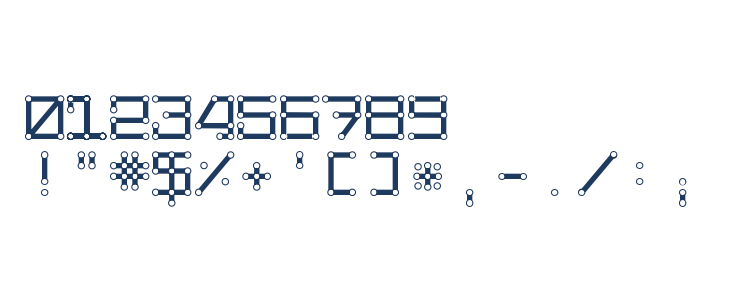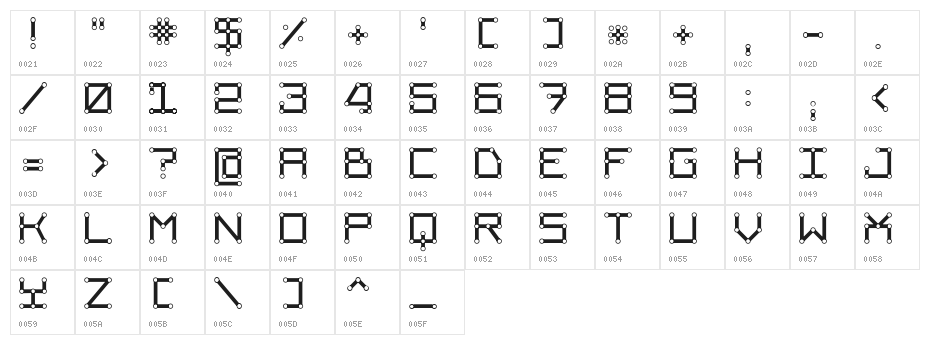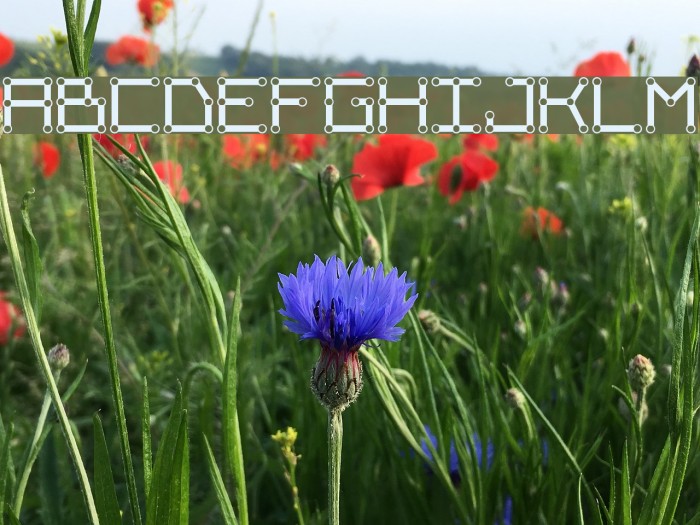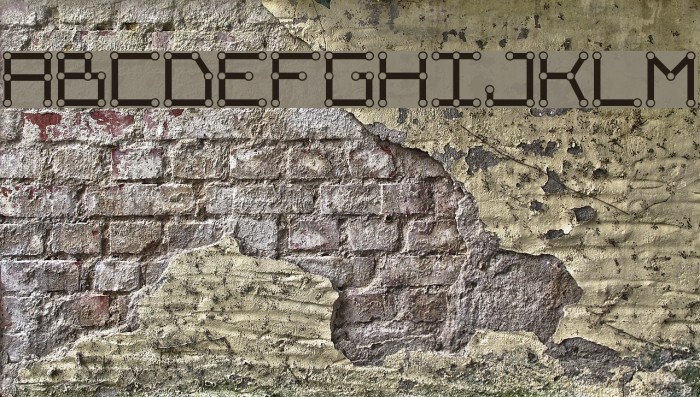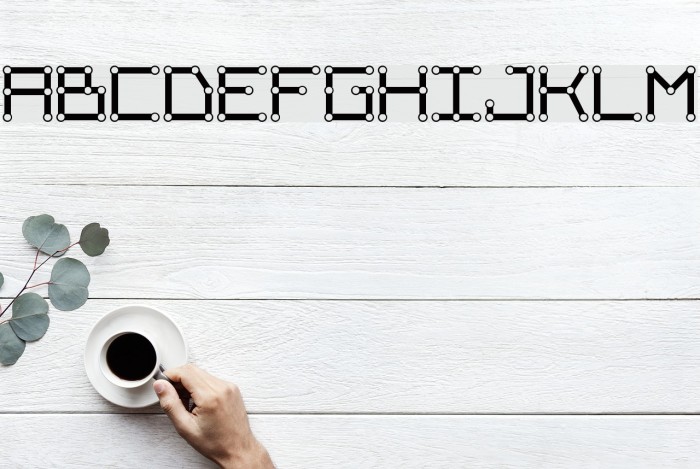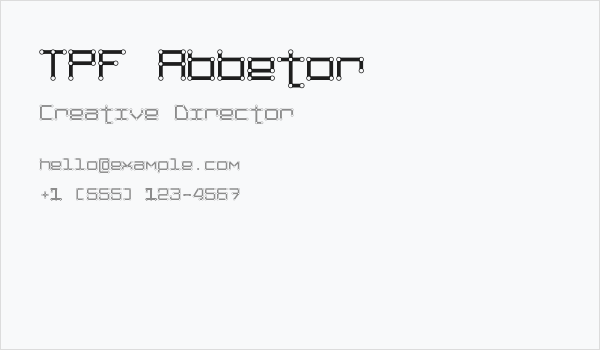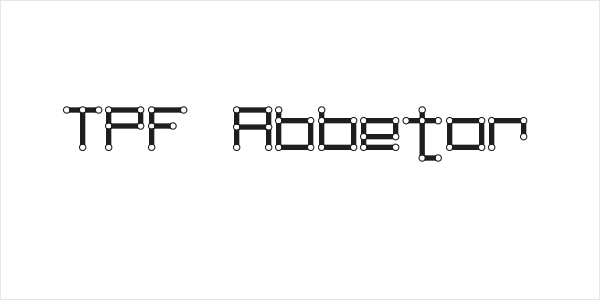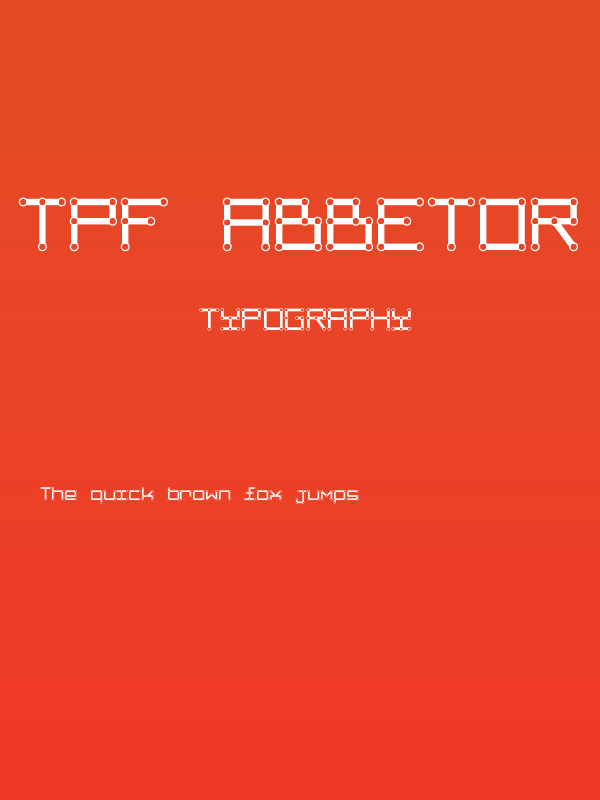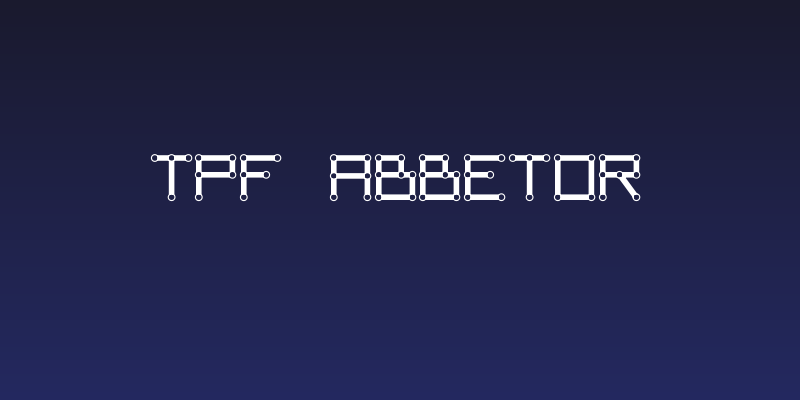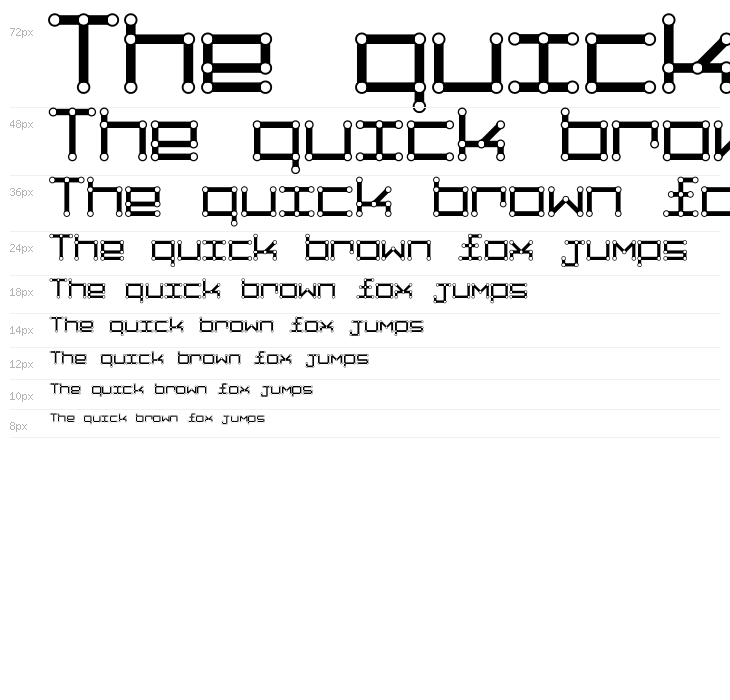
TPF Abbetor Font
TPF Abbetor Description
This font features a unique and modern design, characterized by its geometric and modular structure. Each character is constructed with a series of interconnected lines and dots, creating a digital and futuristic appearance. The font maintains a consistent height and width across all characters, providing a uniform and balanced look. The use of circles at the intersections of lines adds a decorative touch, enhancing its visual appeal. This style is reminiscent of circuit board patterns, making it ideal for tech-related themes. The font is highly legible despite its intricate design, with clear distinctions between uppercase, lowercase, and numerical characters. Special characters are also included, maintaining the same stylistic approach.